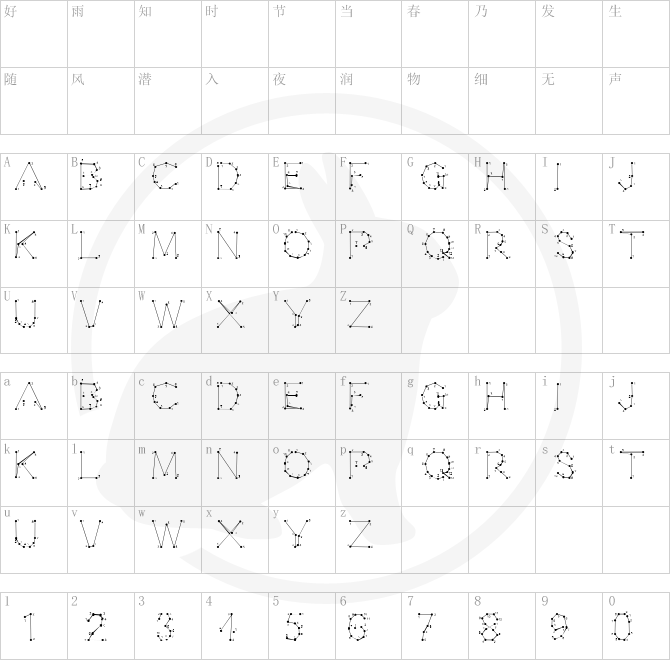
- Font Name:0Pointe-Fait
0Pointe-Fait.ttf is a very beautiful artistic font, 0Pointe-Fait.ttf is widely used in the design and printing of various books and pictures,0Pointe-Fait.ttf has a strong visual impact,0Pointe-Fait.ttf is a commonly used font in newspapers, magazines and books, and is used in posters, e-commerce Poster design, store design, logo design, font design and other fields.0Pointe-Fait.